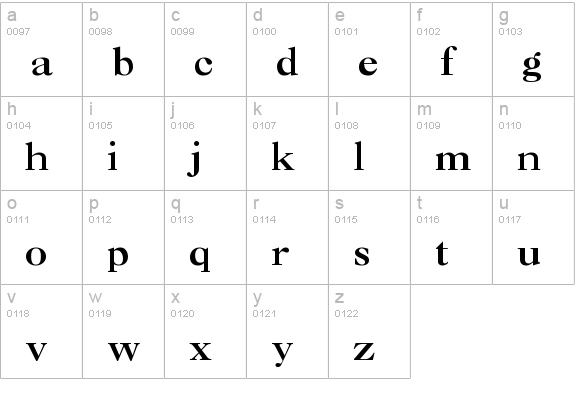
Casablanca Bold is a strong, high-contrast variant in the Casablanca typeface family \xE2\x80\x94 well suited to headlines, attention-grabbing titles, and strong calls-to-action.
Casablanca Bold font is a stunning display typeface that exudes elegance and sophistication. Its bold and stylish letterforms make it perfect for creating eye-catching designs and attention-grabbing headlines. With its timeless appeal and classic charm, Casablanca Bold adds a touch of sophistication to any project. And the best part? Casablanca Bold font is available for free download at FontsMarket.com. Whether you're working on a branding project, poster design, or any other creative endeavor, Casablanca Bold is a versatile font that will elevate your work to the next level. Download Casablanca Bold today and add a touch of timeless elegance to your designs.